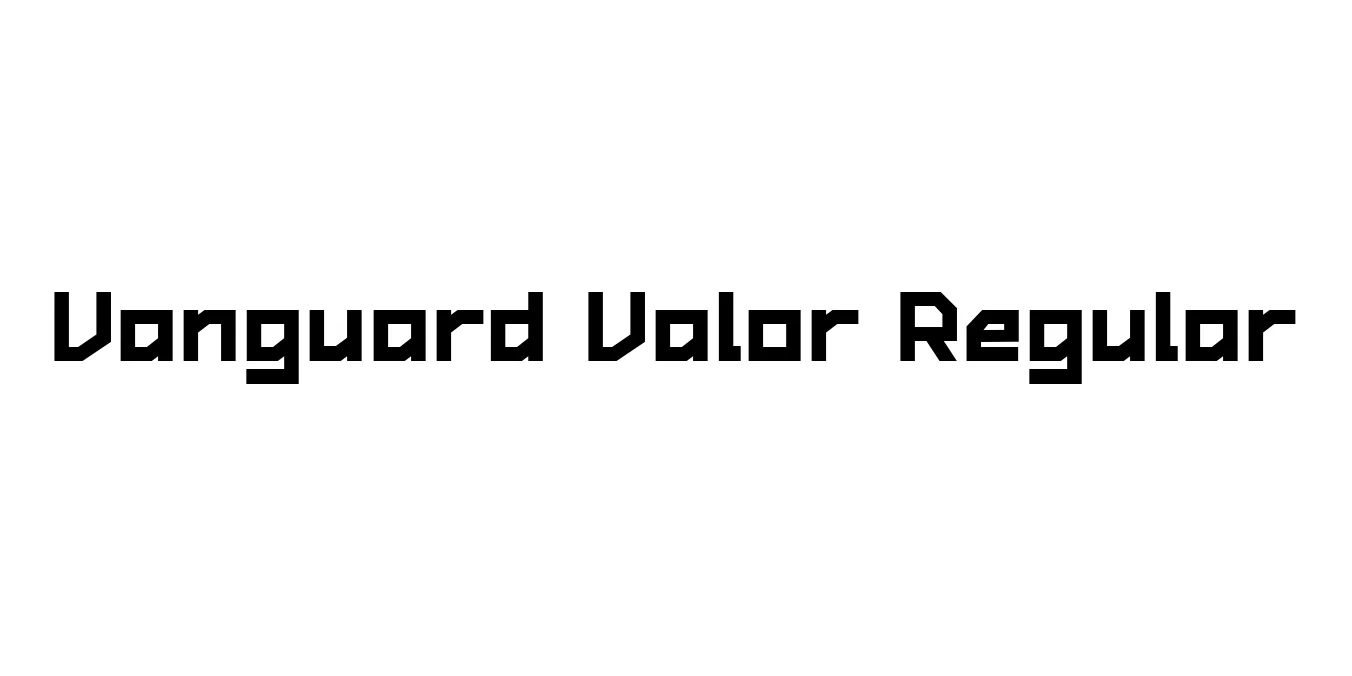
Vanguard Valor Regular
Designed by Iconian Fonts (Dan Zadorozny)
Vanguard Valor Regular is a high-octane display typeface designed by Dan Zadorozny of Iconian Fonts. Known for its wide, geometric architecture and industrial precision, this font was engineered to convey a sense of strength, speed, and futuristic advancement. The design features sharp terminal cuts and a robust weight that commands attention, making it a staple in the toolkit of designers working on high-impact visual media.
Since its release, Vanguard Valor has been widely adopted in the gaming and entertainment industries due to its clean yet aggressive aesthetic. It bridges the gap between classic techno-typography and modern sci-fi styles, offering a versatile range of applications from digital interfaces to physical merchandise. Its wide stance ensures that titles remain legible and authoritative, providing a professional finish to any project requiring a bold, tech-forward personality.
Vanguard Valor Regular Best Uses
Excellent for eSports branding, stream overlays, and in-game UI elements.
Perfect for technology startups and automotive brand identities.
Highly effective for science fiction movie titles and event promotional materials.
Works well for high-contrast graphic tees and sports equipment branding.